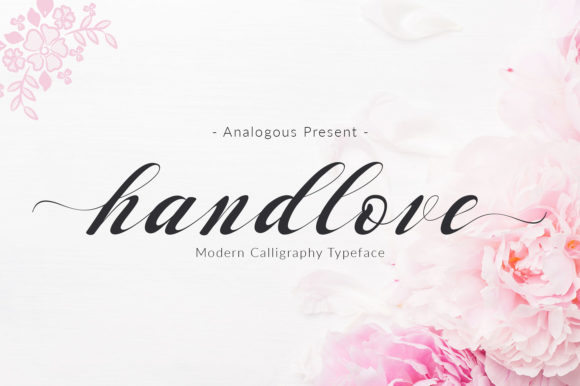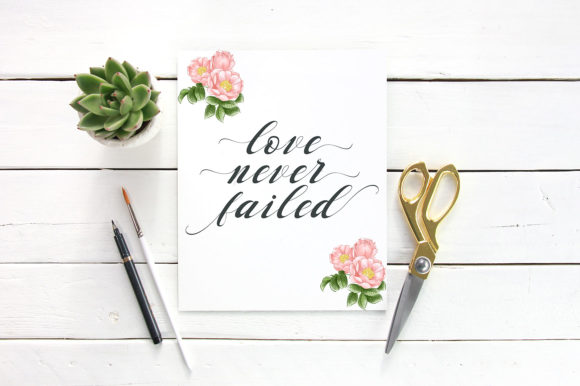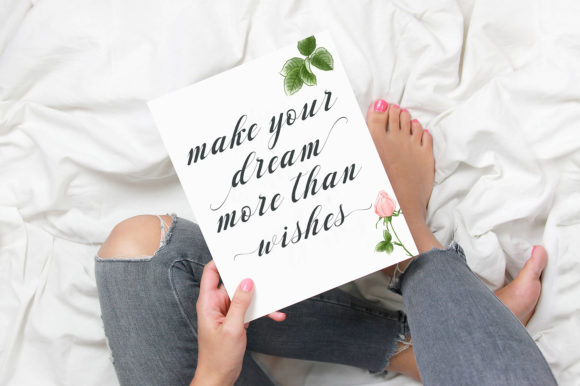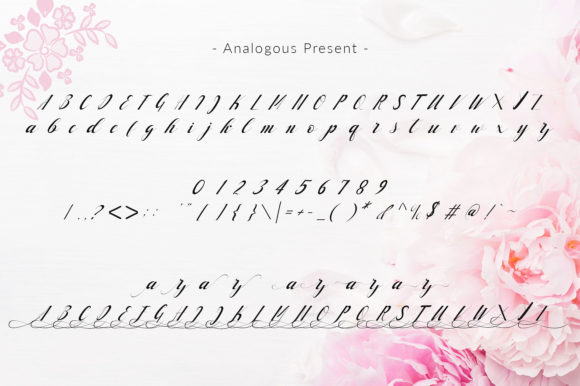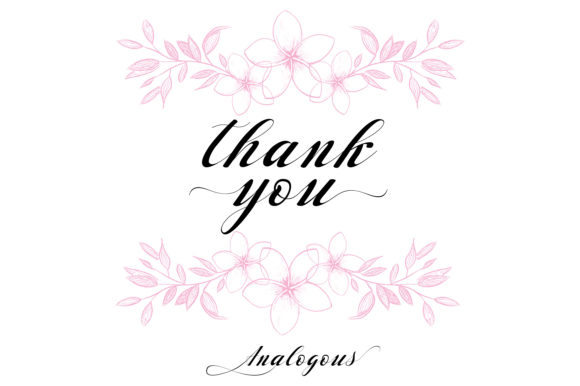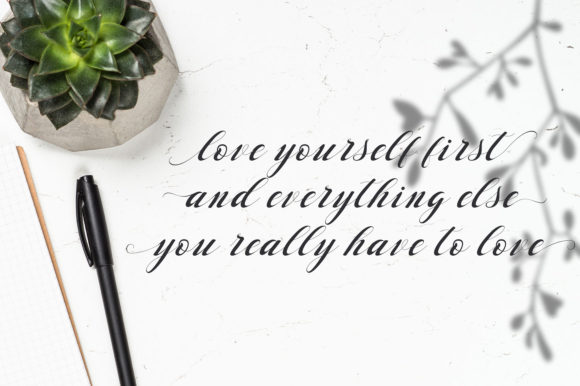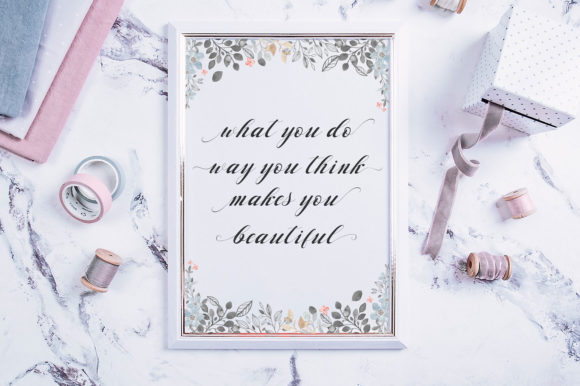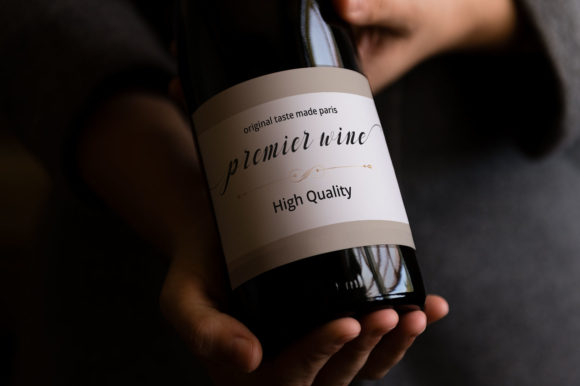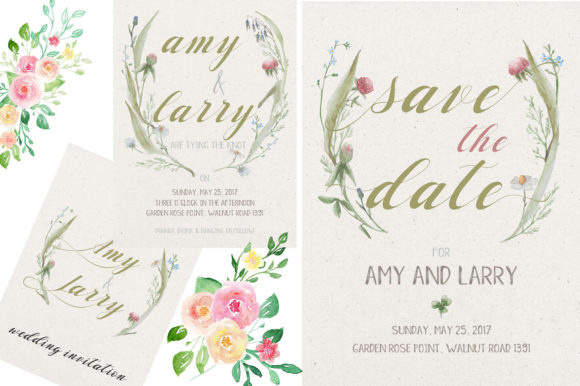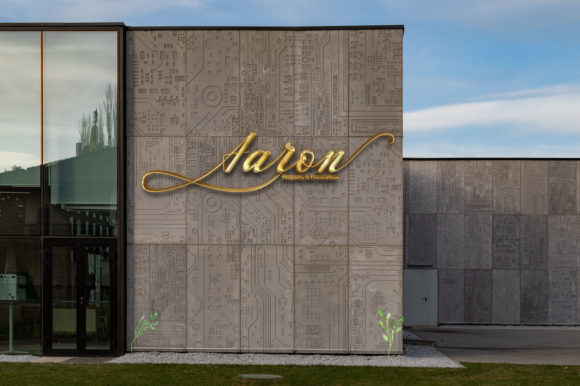
HomeScript FontsHandlove Font Script Fonts Handlove Font FacebookXPinterestWhatsApp Handlove Font Poster 2 Handlove Font Poster 3 Handlove Font Poster 4 Handlove Font Poster 5 Handlove Font Poster 6 Handlove Font Poster 7 Handlove Font Poster 8 Handlove Font Poster 9 Handlove Font Poster 10 Handlove Font Poster 11 Handlove Font Poster 12 Handlove Font Poster 13 About Handlove Font Handlove is a beautiful and stunning script font with a delicate twist. Fall in love with its undeniable charm. DOWNLOAD NOW People also explored Butter Slices Font Mecha Font Vulpecula Font Loxhen Font Type Monster Vinca Font Redensek Cherfuly Font Culture Font 308 0 TagsHandlove Font Previous articleHurringtown Script FontNext articleKempton Duo Font LEAVE A REPLY Cancel reply Comment: Please enter your comment! Name:* Please enter your name here Email:* You have entered an incorrect email address! Please enter your email address here Website: Save my name, email, and website in this browser for the next time I comment. Personal Use Free Austins Personal Use Free Read more about this font Simple Personal Use Free Read more about this font Numberpile Personal Use Free Read more about this font Cokobi Personal Use Free Read more about this font BLOG Top 7 Google Fonts Alternatives for Faster and Privacy-Friendly Web Design (2025) Top 7 Google Fonts Alternatives for Faster and Privacy-Friendly Web Design (2025) When it comes to web typography, Google Fonts has long been the go-to... Best Fonts for T-Shirt Design – Top 2025 Picks Modern Sans-Serif Fonts That Brands Love in 2025 Free vs Paid Fonts: Why Investing in Premium Fonts Is Worth It